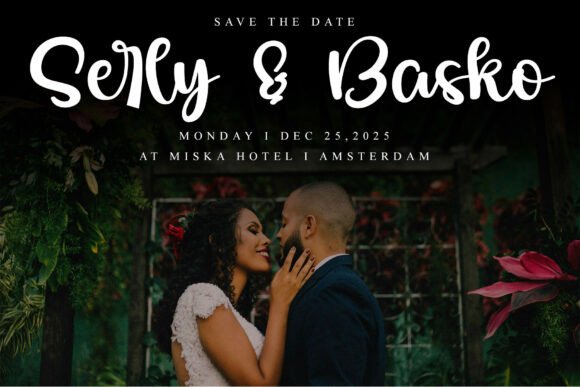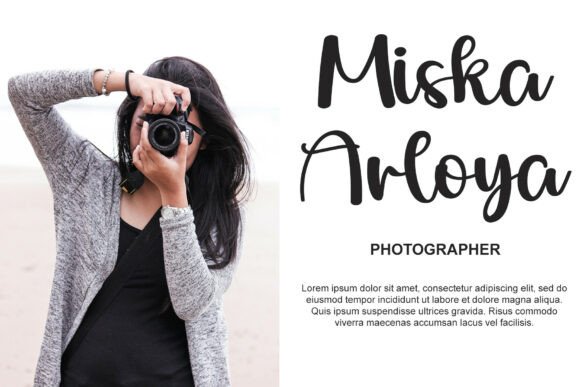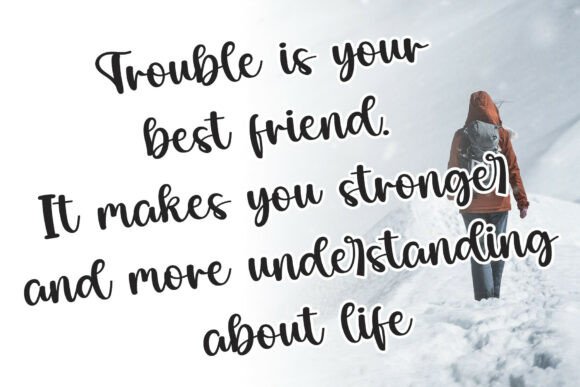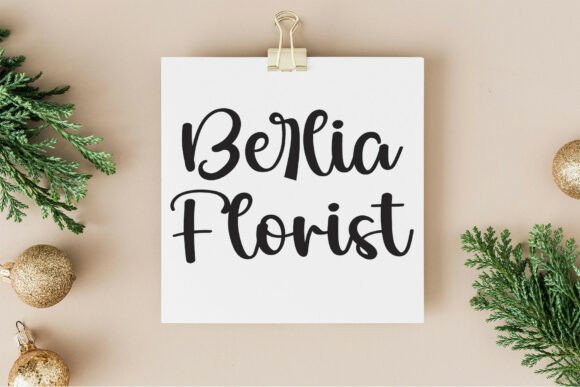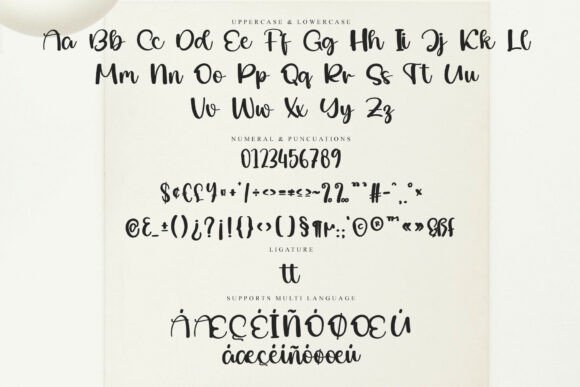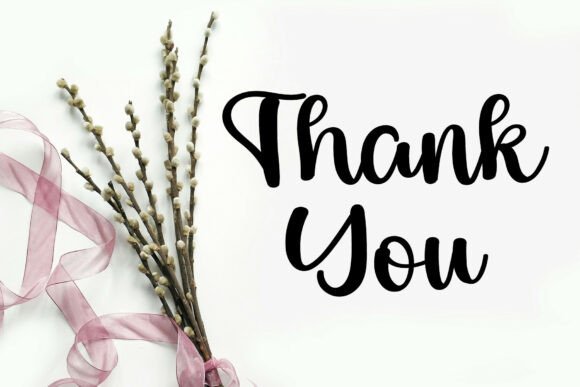
Introduction to Choleric Font
Have you ever been working on a creative project, pouring your heart and soul into it, only to realize that the right font can make all the difference? For designers, finding that perfect font can be a game-changer. It’s the moment when everything comes together, and your design truly shines. That’s exactly what the Choleric Font offers – a unique blend of elegance and power that can elevate any design project.
With its beautiful script handwriting and timeless vintage touch, the Choleric Font is a design resource that stands out from the crowd. Whether you’re looking for a stylish signature, branding design, or nostalgic vintage aesthetics, this font delivers high-quality results with ease. And the best part? It’s available for a free download, making it an accessible design tool for creatives of all levels.
But what makes the Choleric Font truly special is its versatility. From transparent backgrounds to dynamic flows, this font can be used in a variety of creative ways to achieve a sophisticated yet powerful impression.
Key Features of Choleric Font
- Unique blend of modern and vintage styles, ideal for creative projects requiring a touch of sophistication.
- High-quality design, featuring intricate details and a transparent background, making it perfect for overlaying on images or videos.
- Designed to be highly versatile, suitable for a wide range of creative projects, from branding and advertising to digital art and publications.
- Includes a range of weights and styles, allowing designers to customize the font to suit their specific design needs.
Honest Review: Choleric Font
As a designer, I’ve had the pleasure of working with numerous fonts, and the Choleric Font is definitely one of them. I’ve got to say, it’s a game-changer for any creative project that requires a bold, high-contrast look.
- The Choleric Font’s high-quality design makes it perfect for use on a transparent background, allowing your design to truly shine.
- The font’s unique character set makes it ideal for adding a touch of personality to your creative project.
- It’s a versatile design resource that can be used in a variety of contexts, from branding to digital design.
- The font may not be suitable for use in small text sizes, as the bold lines can become difficult to read.
Overall, the Choleric Font is a solid addition to any designer’s toolkit. While it may have some limitations, its unique design and high-quality construction make it a valuable resource for any creative project.
The Choleric Font is a free download design resource ideal for creative projects that require a high quality, visually striking typography. With a transparent background, this font is versatile and can be used in various applications.
The Choleric Font is suitable for various creative projects, including:
- Graphic design and branding
- Print and digital advertising
- Corporate communications and presentations